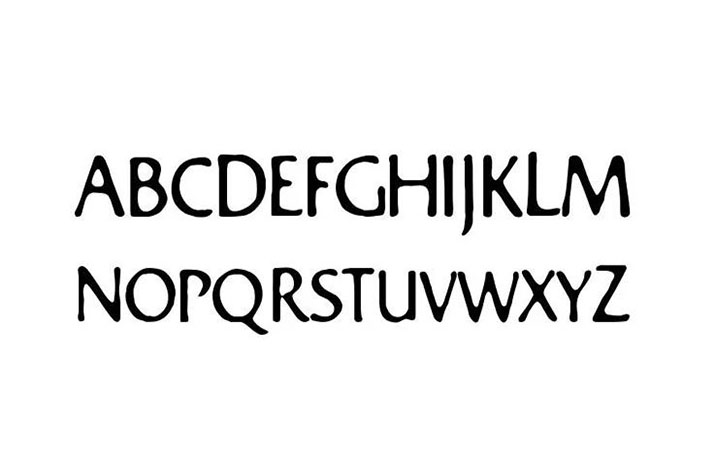
Bastard Font is a fancy eroded typeface that comes with stylish and unique letterforms. Toke Nigaard is known as the primary designer of this font.
Its eroded texture gives it a vintage feel that makes it a good choice for various works including headings, body text, social media posters, headers, and logos.
The great thing about this font is that although it has eroded texture, but it is still easy to read. So, you can also try it out for retro or grunge projects.
| Style: | Fancy, Eroded, Display |